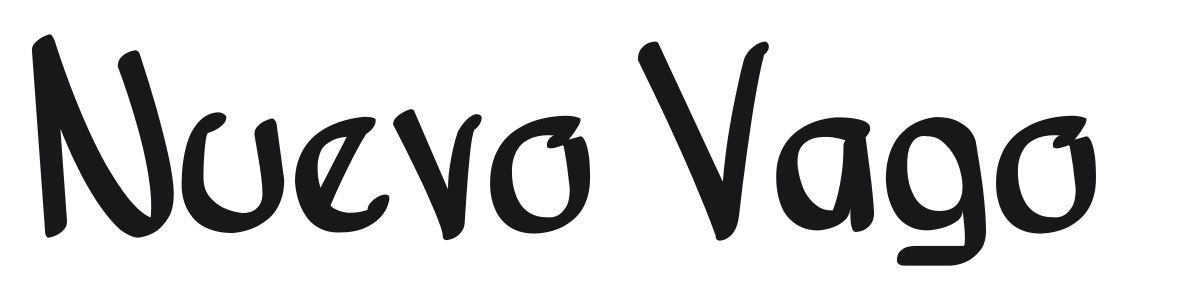
Nuevo Vago
Nuevo Vago is a bold, rounded handwritten face from Legba with a loose, bouncy character that feels more like doodling than lettering. The thick strokes and quirky letterforms give it a playful personality without trying too hard, landing naturally on headlines, posters, and informal branding where you want something that reads as friendly and a little offbeat.